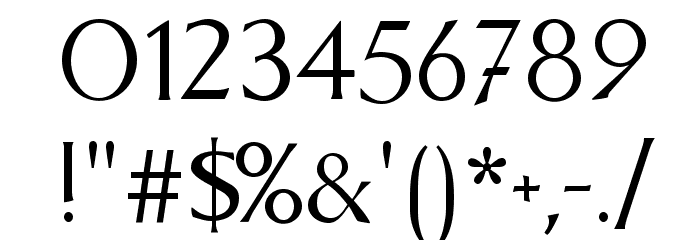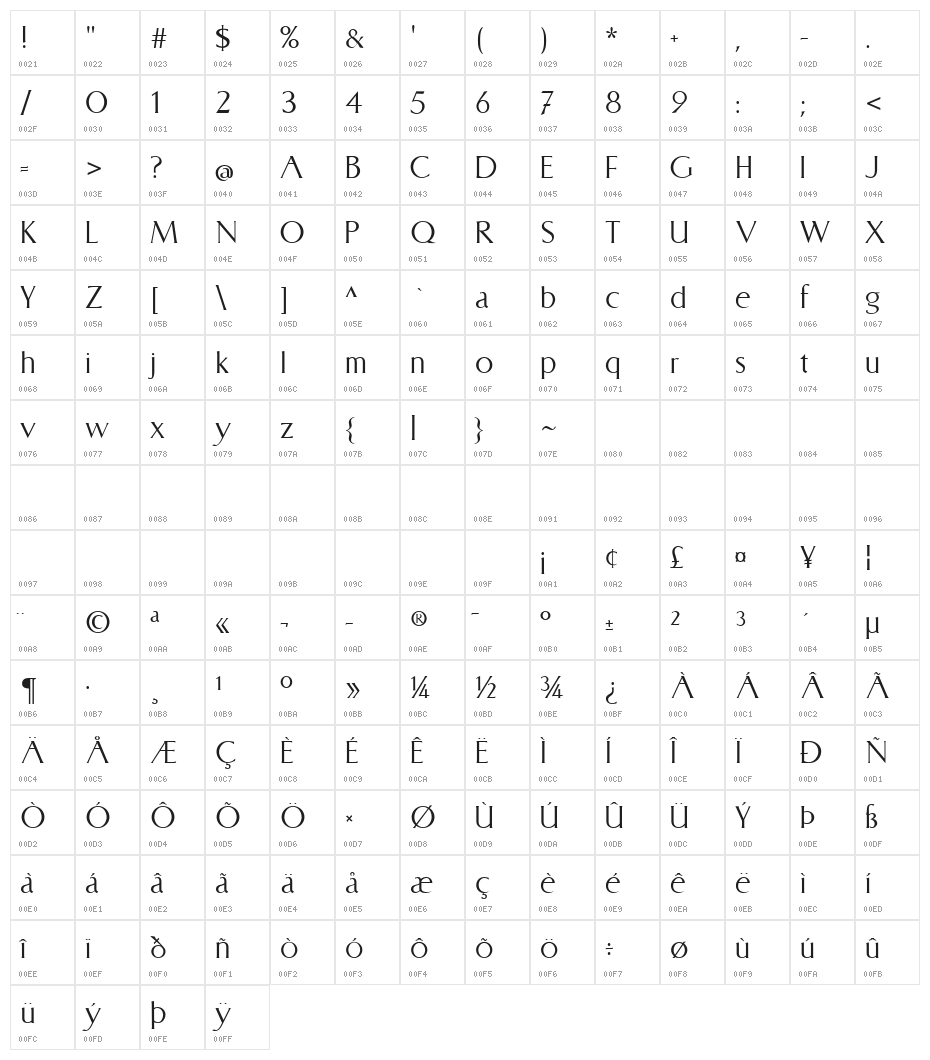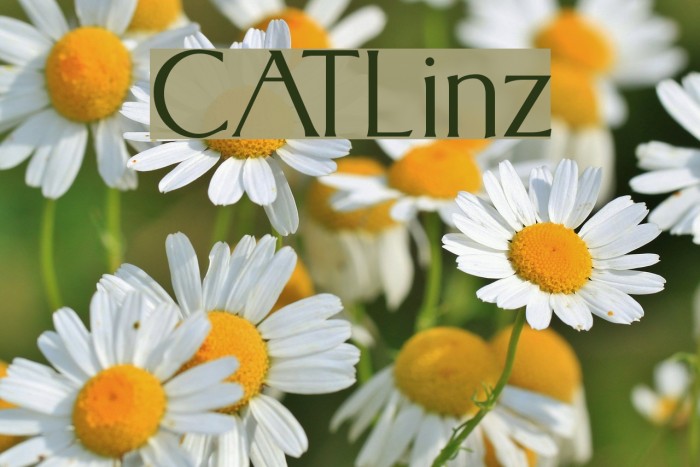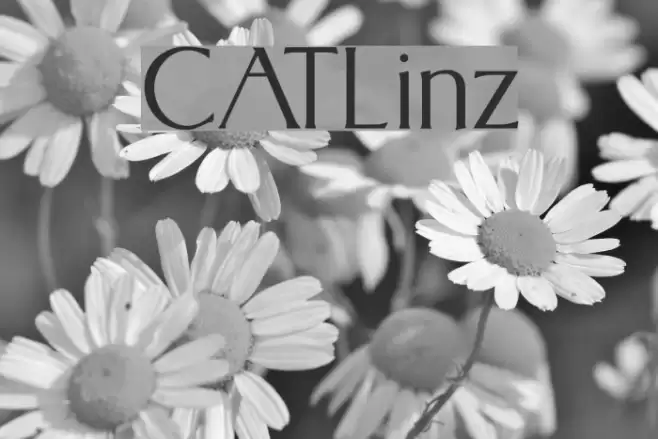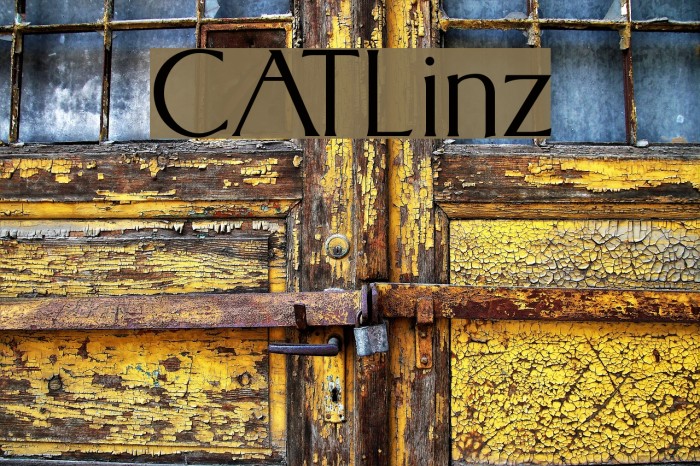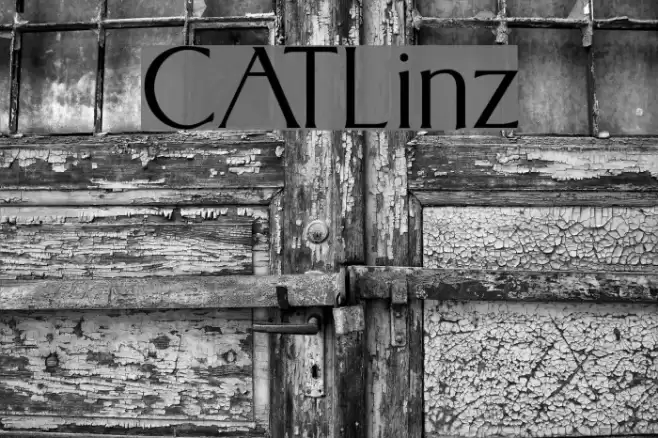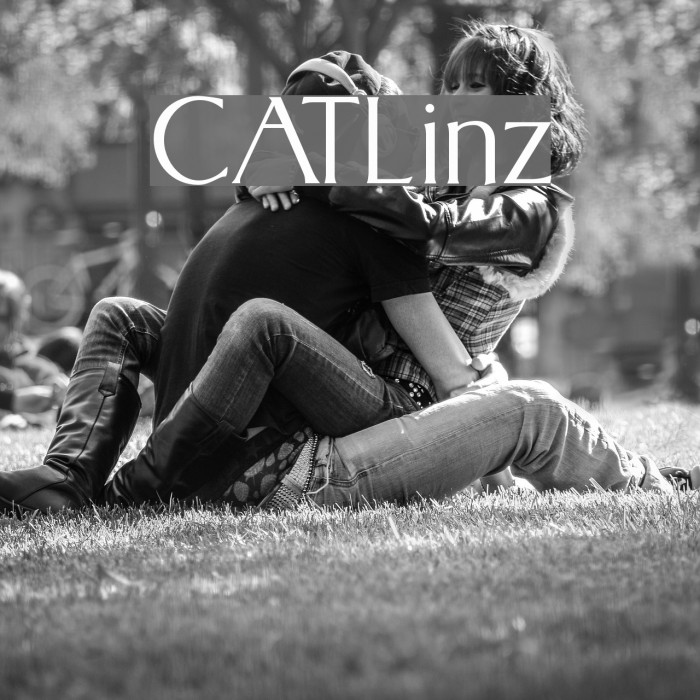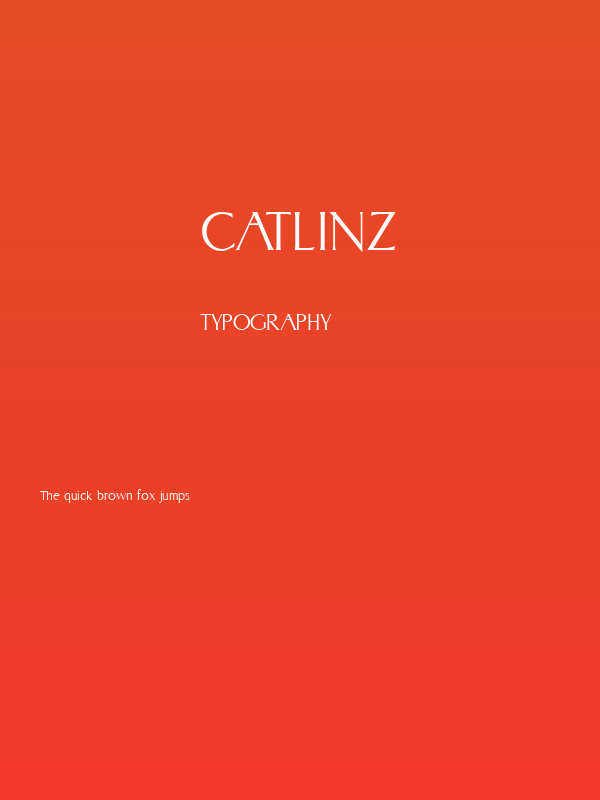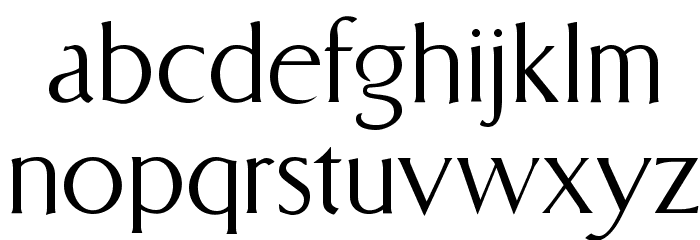
CATLinz Font
CATLinz Description
This font features a sophisticated and elegant serif style, characterized by its sharp, clean lines and subtle curves. The uppercase letters exhibit a classic and timeless feel, with a slight tapering at the ends of the strokes, adding a touch of refinement. The lowercase letters maintain a harmonious balance, offering a smooth and flowing appearance. The numerals are distinct and easily readable, making them suitable for various applications. Special characters are well-integrated, maintaining the overall aesthetic of the font. The design is versatile, suitable for both modern and traditional contexts, and can be used effectively in both digital and print media.